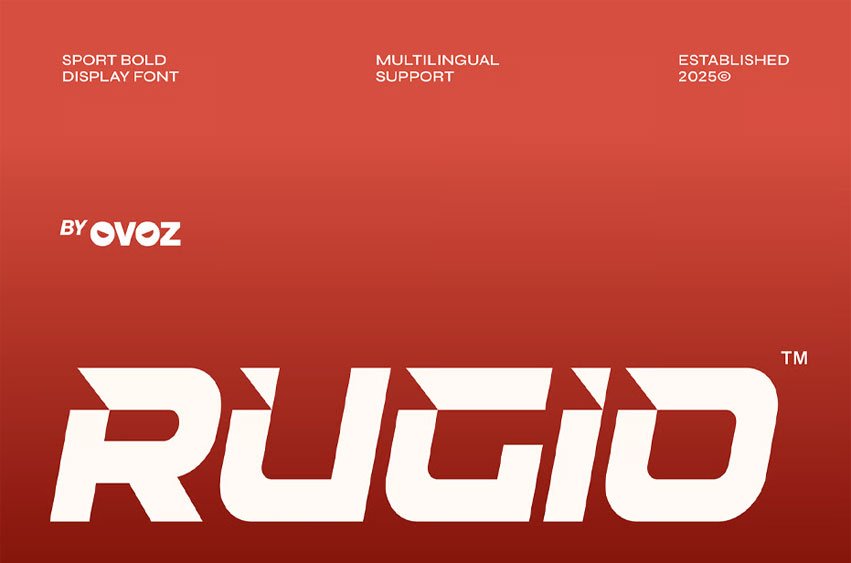
Rugio Sports Font is a sport-bold display font that blends smooth rounded curves with sharp angular cuts, creating a sleek athletic look built for movement and precision. Its dynamic forms make it ideal for sports branding that demands a modern and energetic presence—perfect for football graphics, basketball posters, baseball promotions, soccer campaigns, and high-speed racing visuals. RUGIO delivers bold sport character for fitness campaigns, gym promotions, golf events, and sporty editorial layouts, offering clean impact with a strong competitive personality.
Designed for versatility across a wide range of athletic environments, RUGIO performs confidently in race identities, biker event branding, hockey tournament visuals, and high-impact fight-event promotions. The unique balance between softness and strength creates a fast, confident rhythm that elevates multi-sport campaigns, performance-driven visuals, and action-focused graphic systems. Whether used for competitive branding or high-energy marketing materials, RUGIO ensures every message stands out with clarity, style, and unstoppable athletic momentum.
Bold Moves, Strong Letters — where dynamic sport energy meets modern precision to create a fearless competitive identity.